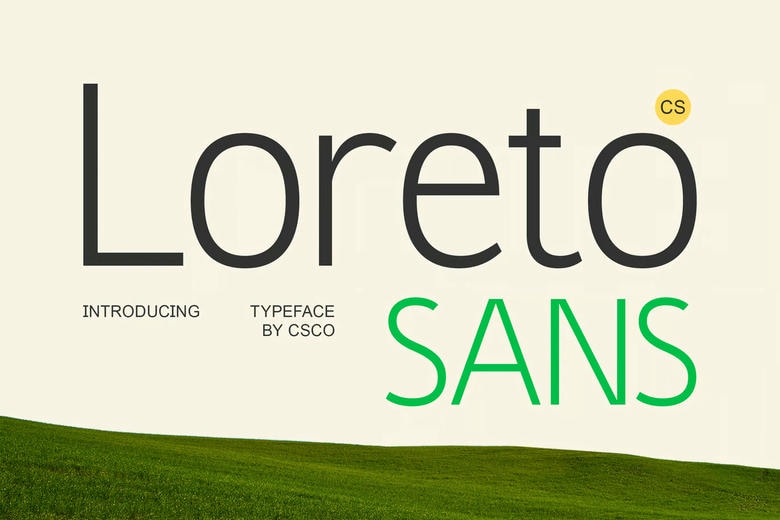
Loreto Font
CS Loreto is a modern sans-serif font that seamlessly blends geometric precision with grotesque character. Designed for clarity and impact, it balances clean lines with subtle detailing, making it ideal for contemporary and professional applications. Whether used in digital interfaces or print media, its structured form enhances both functionality and style.
Balanced Proportions for Versatile Use With contemporary proportions and a well-structured appearance, CS Loreto adapts effortlessly to various design needs. It is crafted to provide a seamless reading experience, ensuring legibility in both large headlines and smaller body text. Its versatility makes it perfect for branding, editorial layouts, marketing materials, and web design.